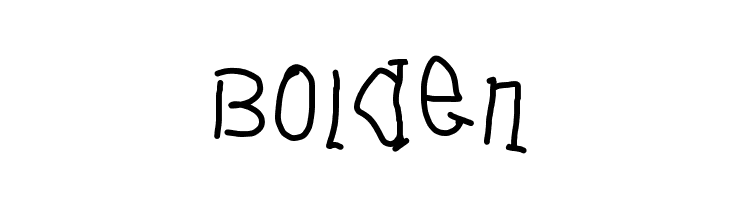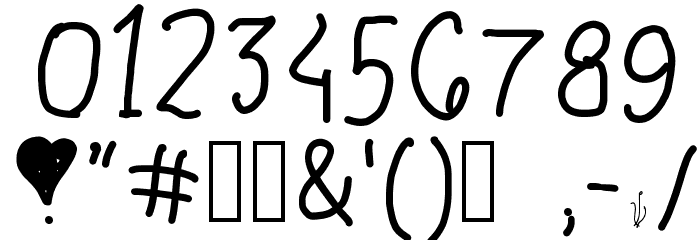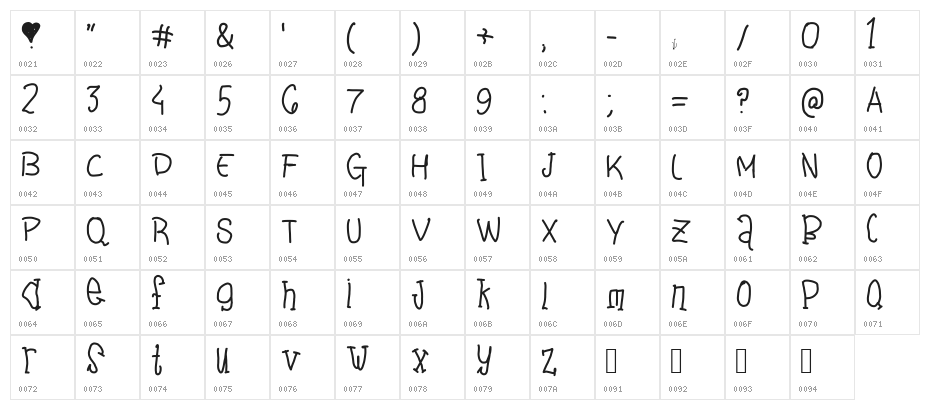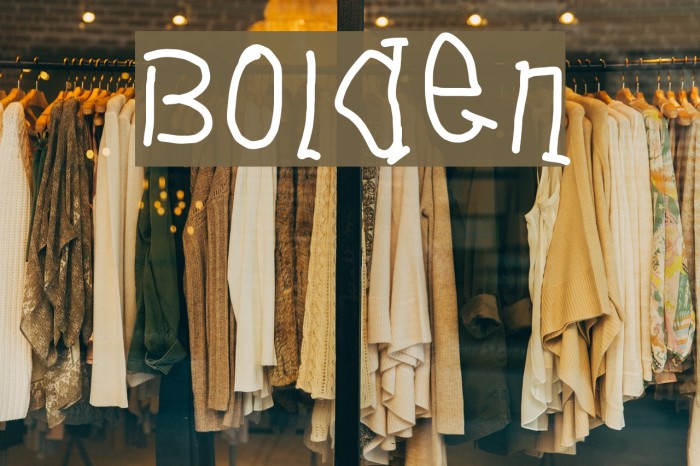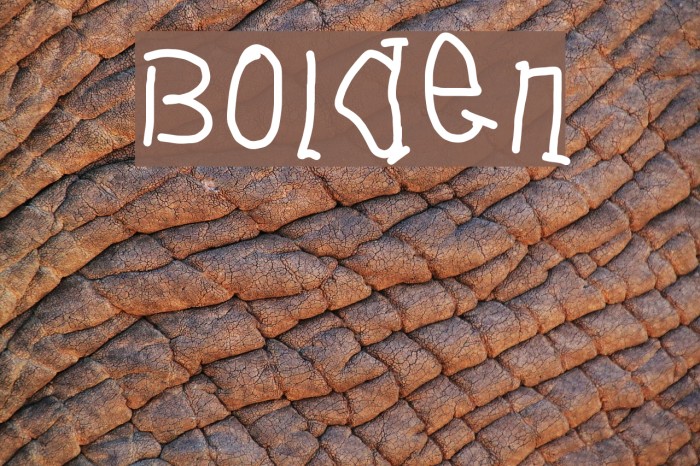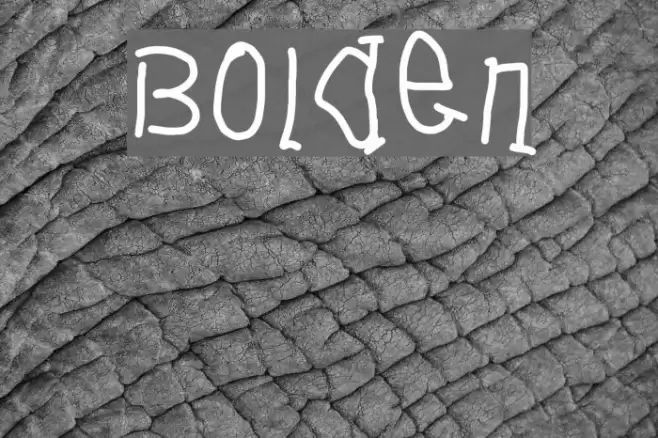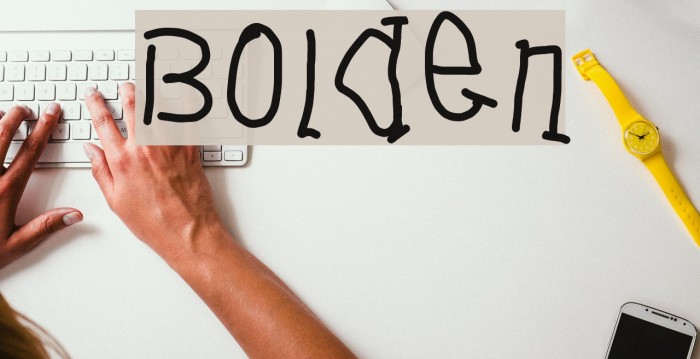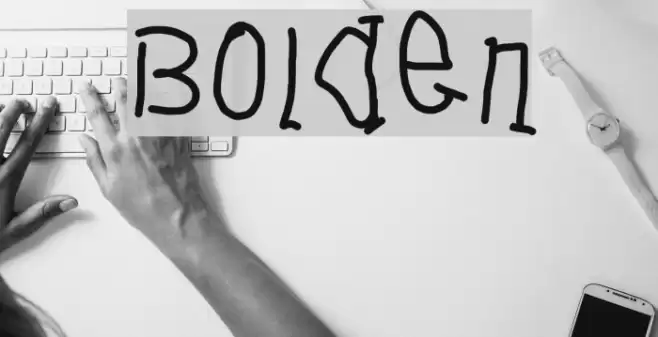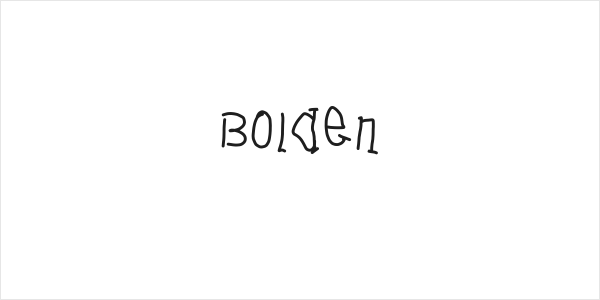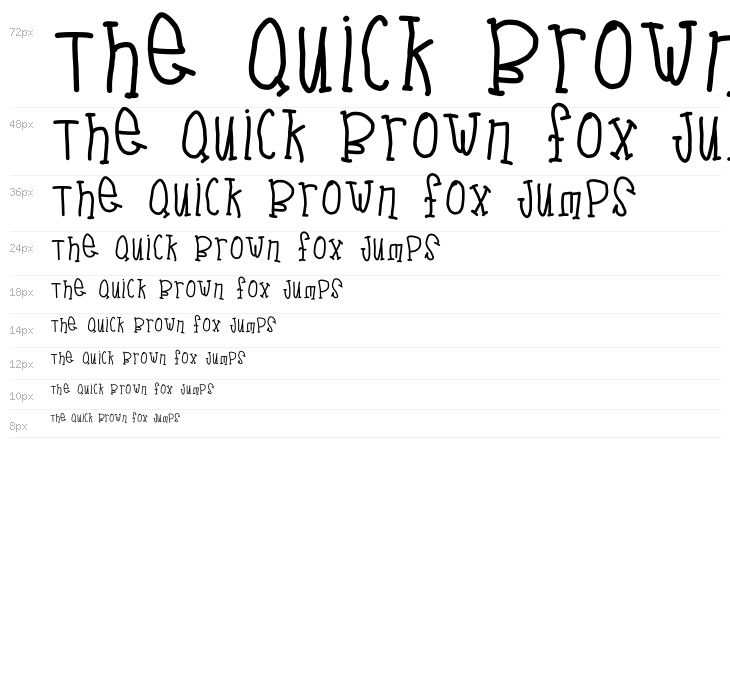
Bolden Font
Bolden Description
This font features a playful and whimsical style with a hand-drawn appearance. The characters are slightly irregular, giving them a unique and artistic flair. The uppercase letters are bold and prominent, while the lowercase letters maintain a consistent style with slight variations in stroke width. The numbers are clear and easy to read, matching the overall playful theme. Special characters are creatively designed, adding to the font's charm. This font is perfect for projects that require a fun and informal touch, such as children's books, greeting cards, or creative posters.
| Proposed Projects | Ideal for children's books, greeting cards, creative posters, and informal branding. |